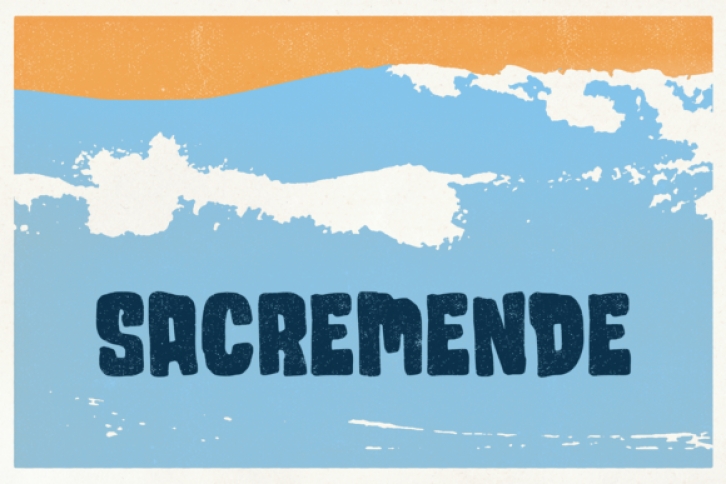
Sacremende is a unique and bold display font. Masterfully designed to become a true favorite, this font has the potential to bring each of your creative ideas to the highest level!